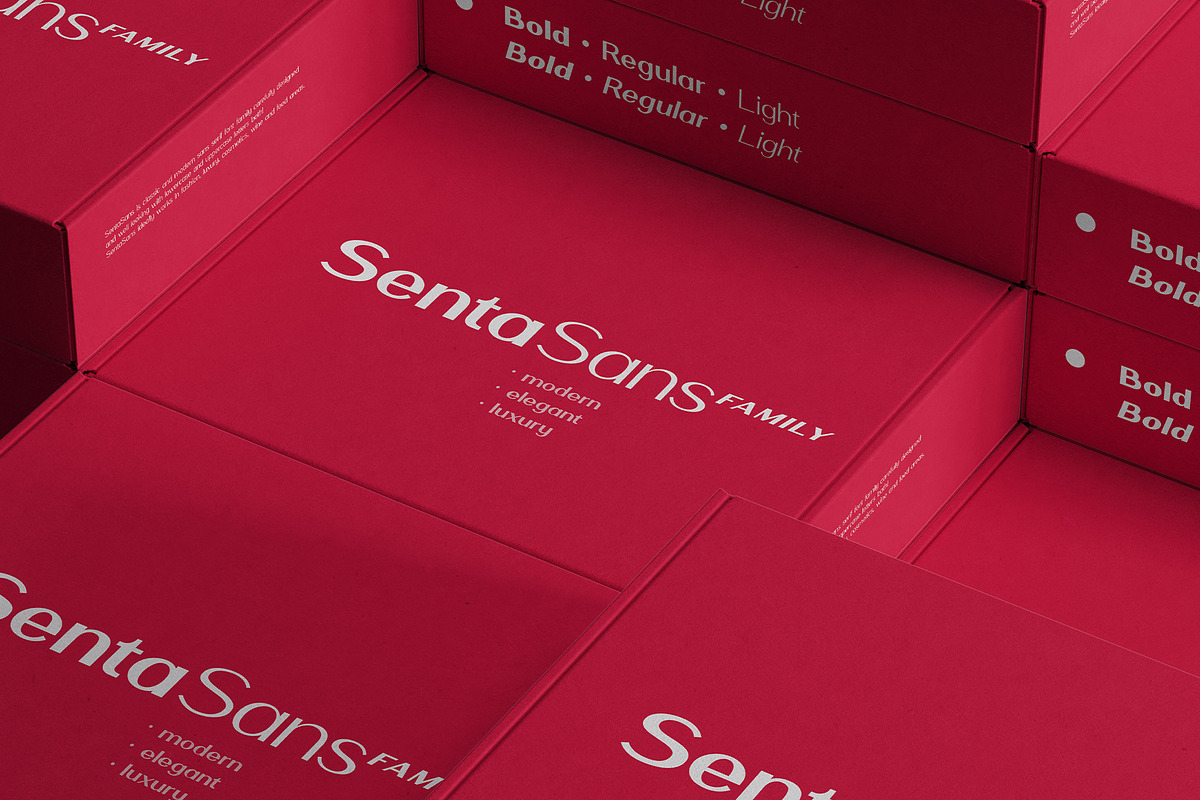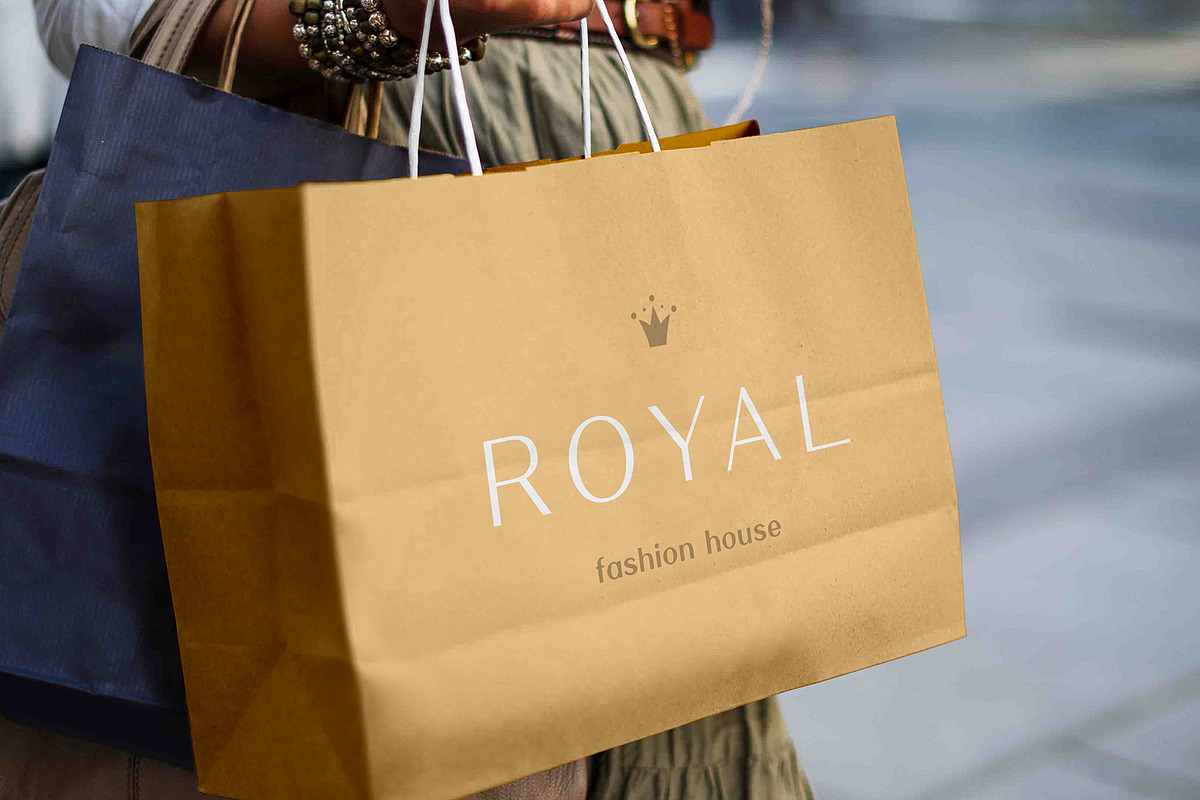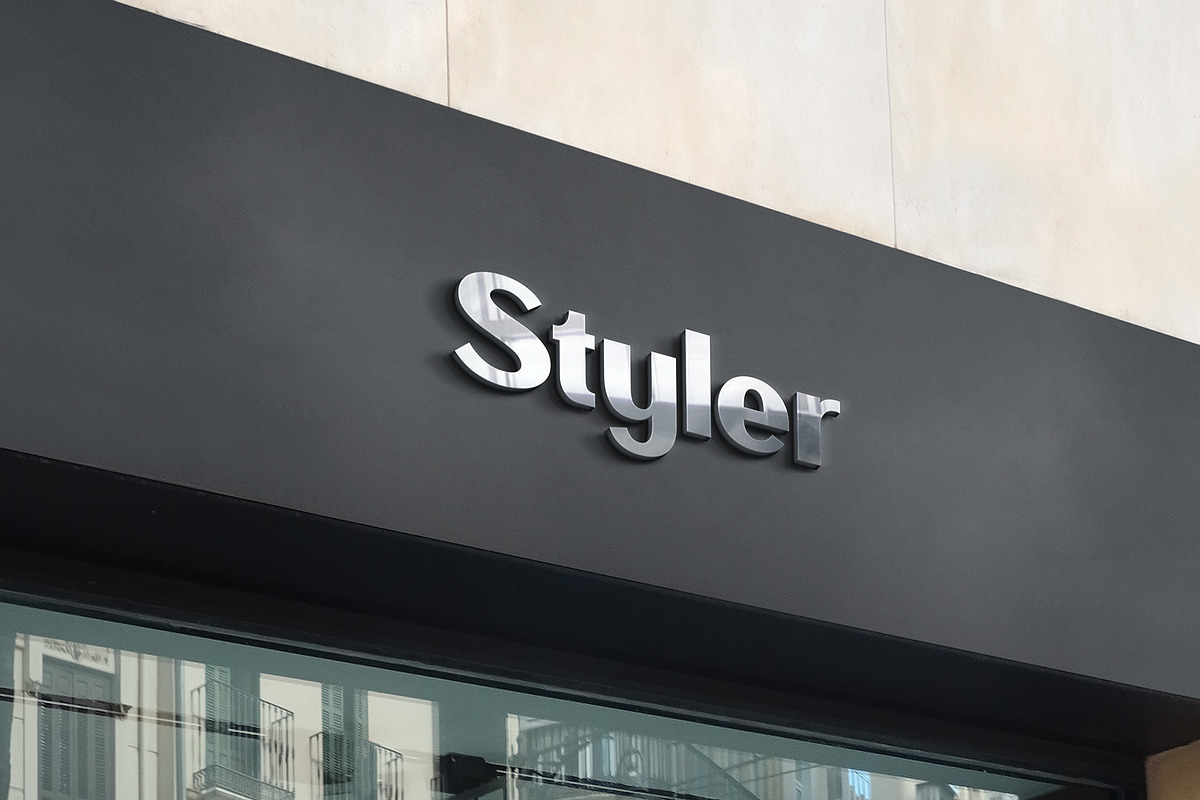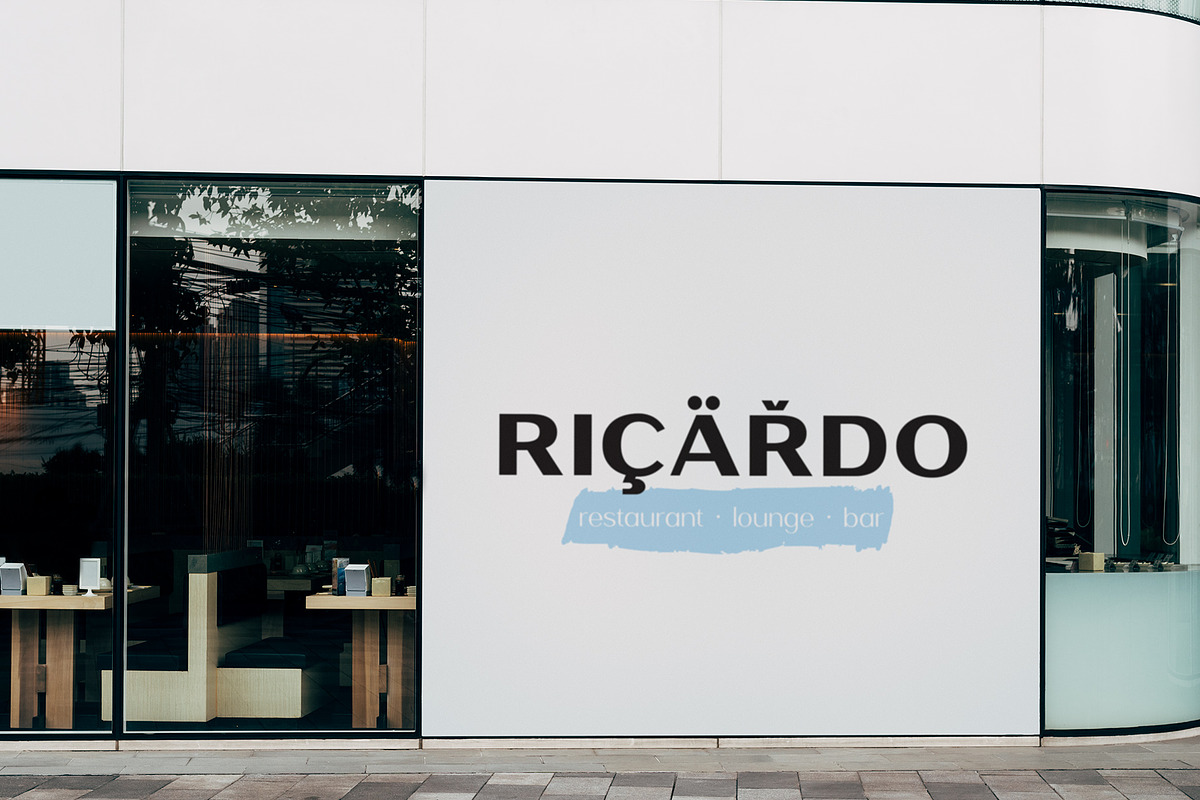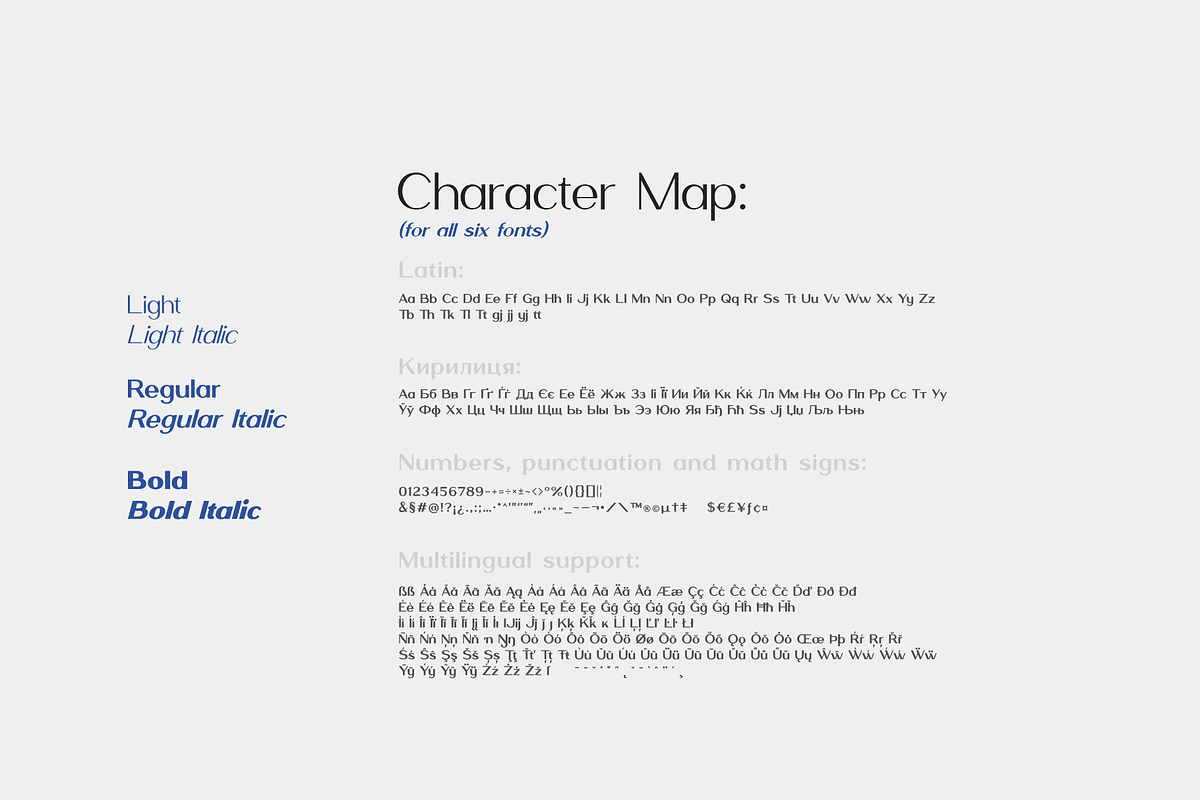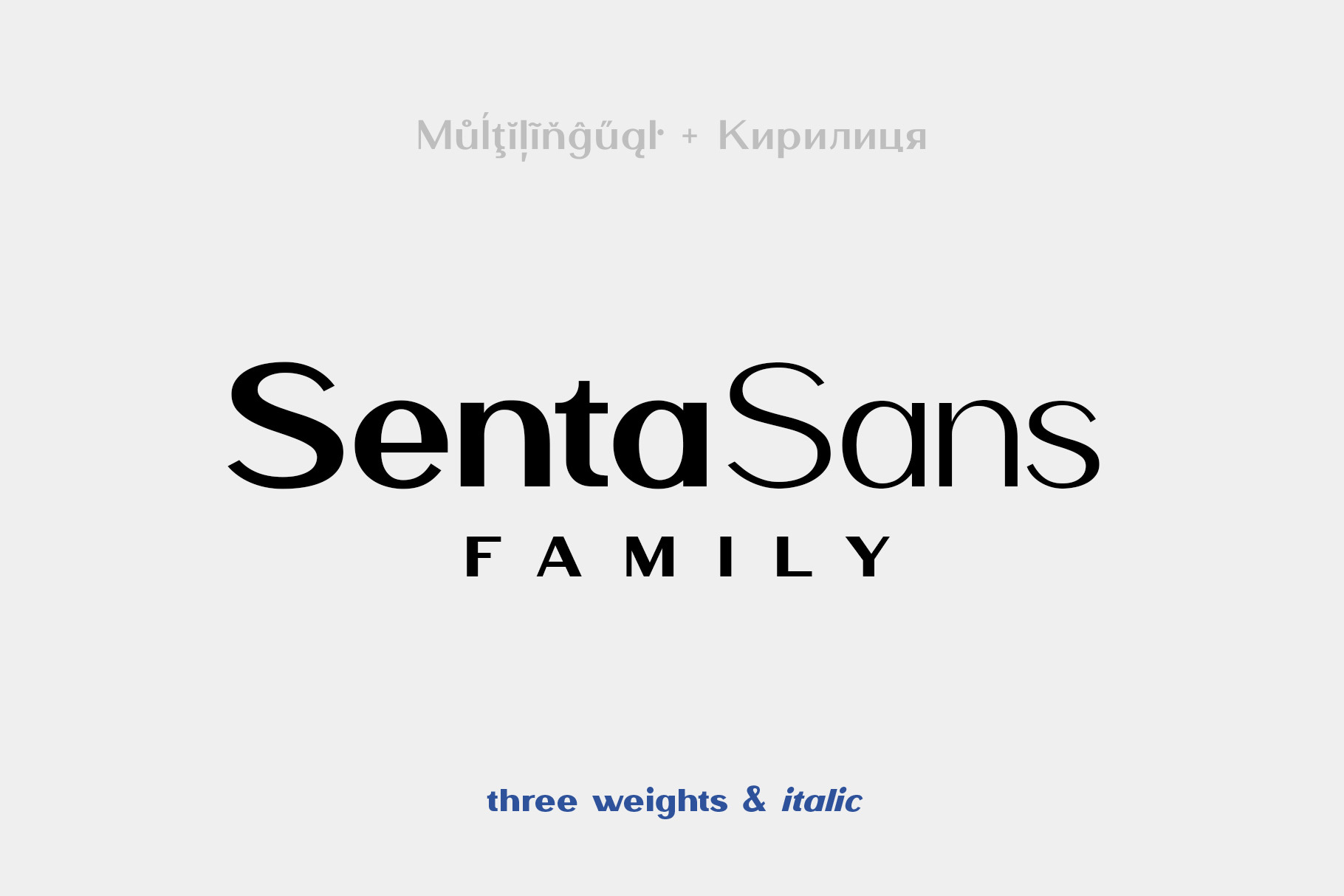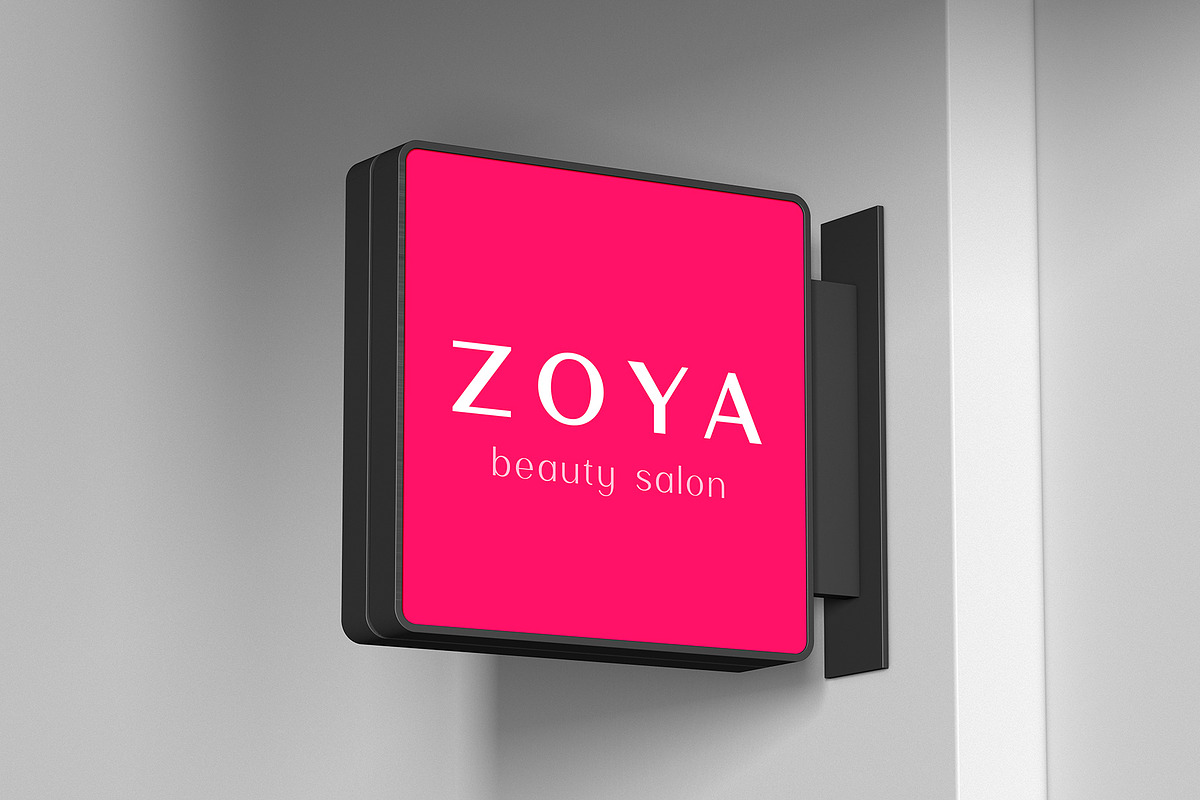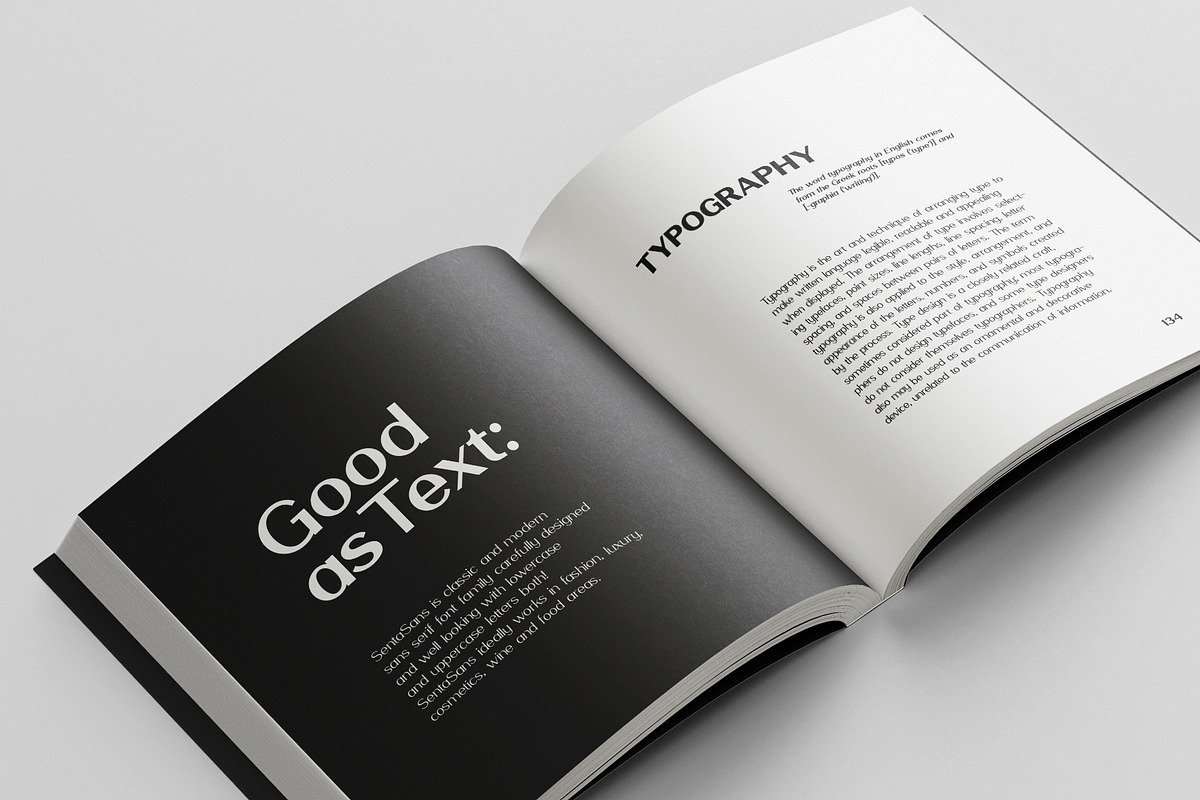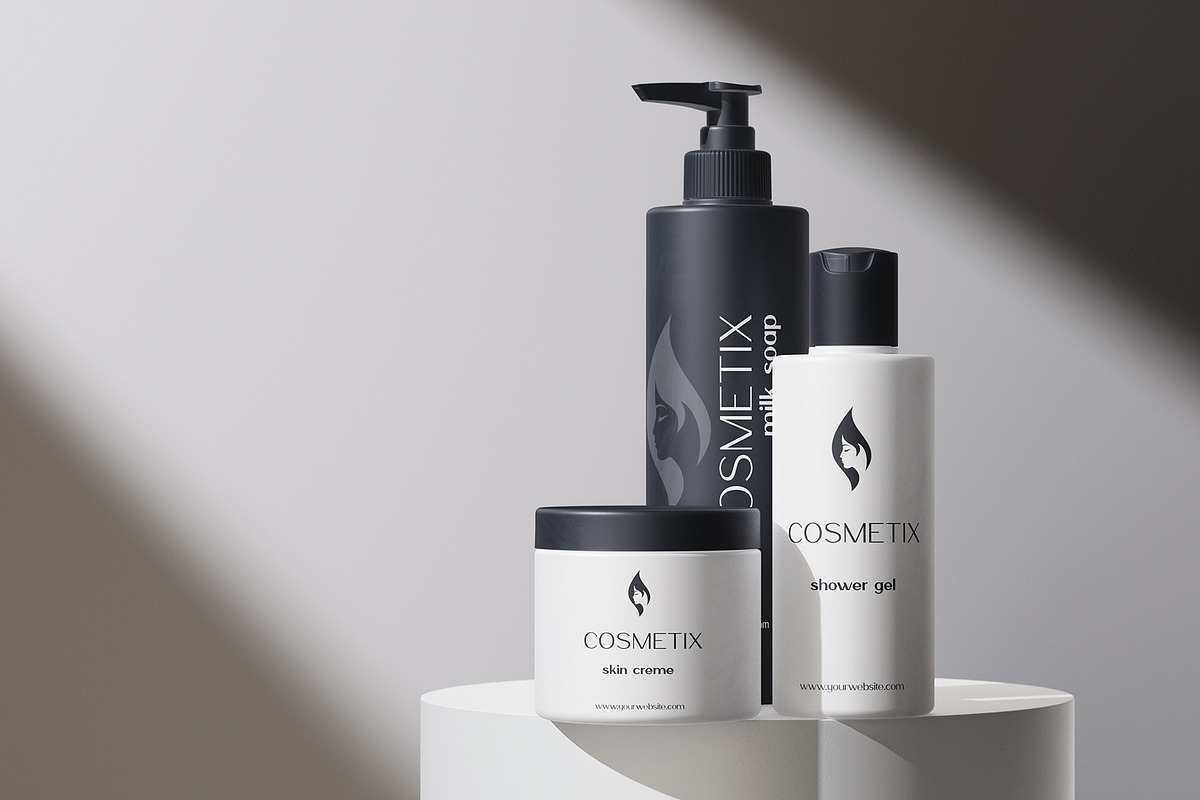
SentaSans Font Family
SentaSans is classic and modern sans serif font family carefully designed and well looking with lowercase and uppercase letters both! SentaSans ideally works in fashion, luxury, cosmetics, wine and food areas.
Multilingual support (LatinPro & Cyrillic).
Supported Languages: Bosnian, Catalan, Czech, Danish, German, English, Spanish, Estonian, Finnish, French, Irish, Croatian, Hungarian, Icelandic, Italian, Lithuanian, Latvian, Maltese, Norwegian, Polish, Portuguese, Romanian, Slovak, Slovenian, Albanian, Swedish, Turkish, Ukrainian, Belarusian, Bulgarian, Macedonian, Russian, Rusyn, Russian, Serbo-Croatian.